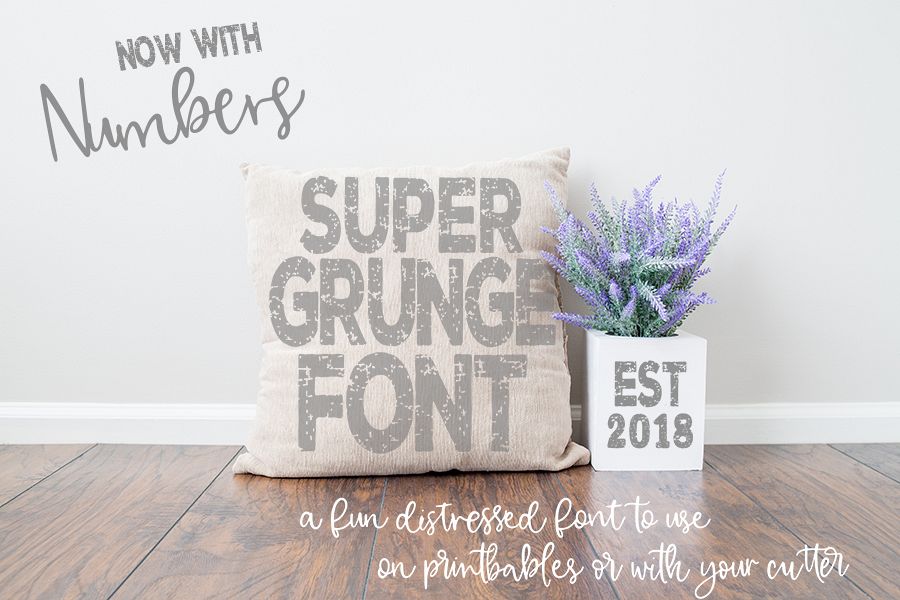
Super Grunge Font now with NUMBERS
Super Grunge Font is an all caps font that can be used to make a huge statement!!!
One of the things that is very different about this font is that is was originally designed to be cut with a machine like Cricut.  You will get the letters in OTF, SVG and AI.
This is probably the only grunge font that you will find that is easy to weed when it is cut because of the way it is made. If you use a lint roller it is fast and very easy!!